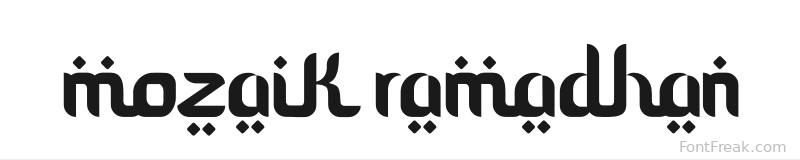
mozaik ramadhan
The Mozaik Ramadhan font, crafted by MaknaStudio in 2021, is a decorative typeface that draws inspiration from intricate geometric patterns often associated with Islamic art. This font stands out for its unique blend of modernity and tradition, making it visually captivating. Featuring a medium stroke weight and a balanced contrast, the letters are designed with an inviting warmth, perfect for both display and text use. The spacing is thoughtfully arranged to ensure legibility, while decorative elements such as sharp angles and rounded edges create a harmonious aesthetic.
Best suited for festive occasions, the Mozaik Ramadhan font is an excellent choice for wedding invitations, Ramadan greeting cards, event flyers, and restaurant menus, particularly those serving Middle Eastern cuisine. Its unique style can also enhance social media graphics and blog headers, appealing to a wide range of content creators looking to convey a cultural narrative. The font caters to graphic designers and small business owners who wish to capture the essence of tradition while appealing to contemporary audiences.